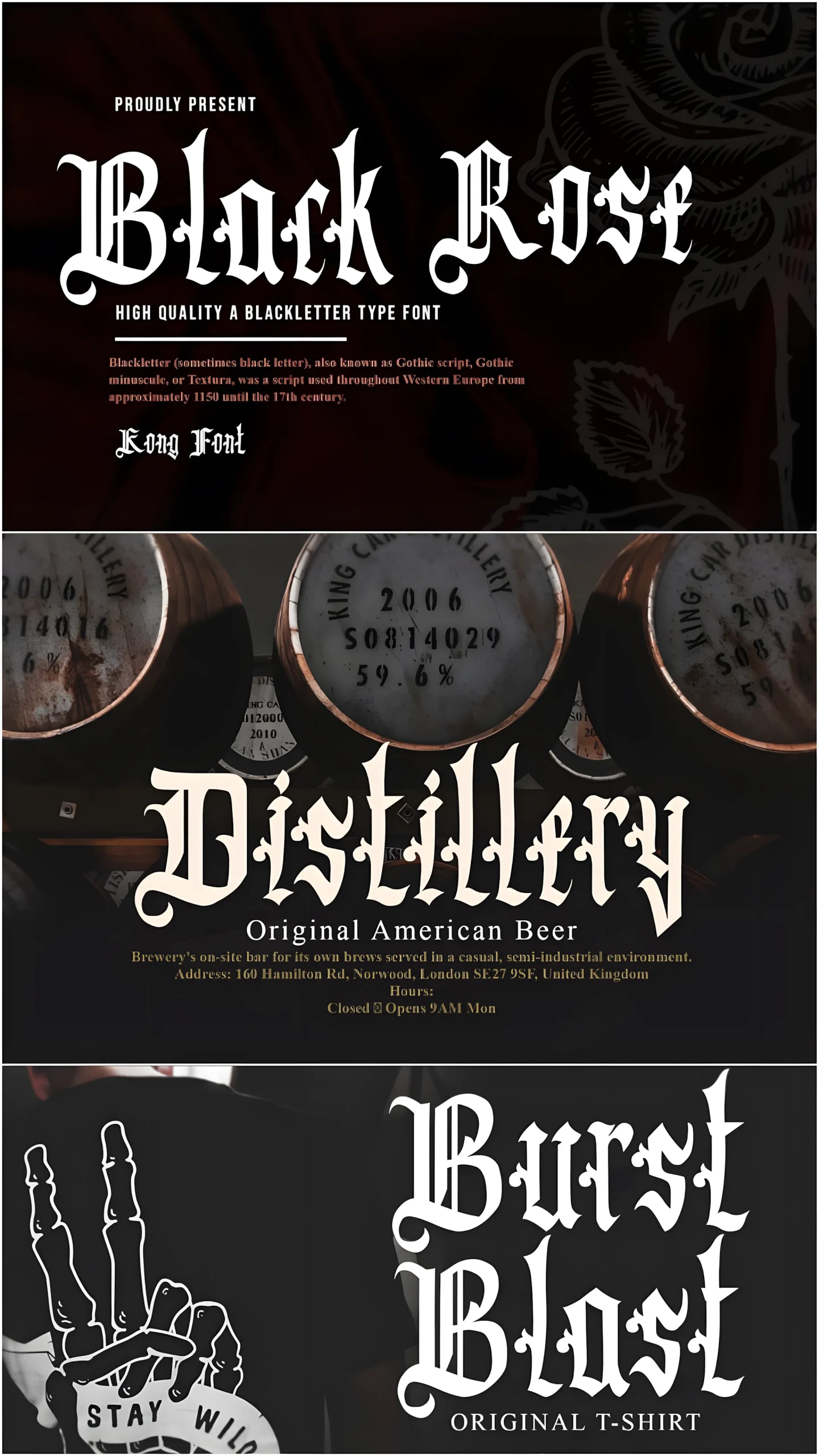
Some fonts feel decorative, others feel historical, and a few manage to balance both worlds. Black Rose Font belongs to that rare category. This is a classic blackletter display typeface designed to bring traditional gothic elegance into modern creative projects.
The font is rooted in historic blackletter writing styles, yet it feels clean, controlled, and highly usable. It works well for designers who want a timeless gothic look without excessive ornamentation or visual noise.
Visual Style and First Impression
Black Rose Font immediately communicates tradition and authority. The letterforms are sharp, structured, and clearly inspired by classic blackletter scripts once used throughout Western Europe. The strokes are deliberate and well-balanced, giving the font a refined and dignified appearance.
Unlike more aggressive or distressed gothic fonts, Black Rose feels polished and calm. The edges are clean, the proportions are consistent, and the characters maintain excellent legibility for a blackletter typeface.
The overall impression is classic, elegant, and confident.
A Traditional Blackletter With Modern Clarity
At its core, Black Rose Font is a blackletter typeface, sometimes referred to as gothic or textura-inspired lettering. This style is known for its vertical emphasis, sharp angles, and formal rhythm.
What makes Black Rose stand out is its restraint. The font does not exaggerate spikes or distort shapes. Instead, it preserves the historical character while adapting it for modern design needs.
The result is a font that feels authentic without appearing outdated or overly decorative.
Designed for Versatile Creative Use
Black Rose Font is flexible enough to work across many design categories. It fits naturally into projects that require a sense of tradition, craftsmanship, or formality, but it also adapts well to contemporary layouts.
It works especially well in designs related to:
- heritage and tradition
- gothic or medieval themes
- classic branding
- formal decorative typography
The font feels intentional rather than theatrical.
Practical Design Applications
Logos and Branding
Black Rose Font works well in logo design where a strong, classic identity is needed. The blackletter structure gives logos a sense of history and authority, making them feel established and trustworthy.
It fits especially well for:
- craft brands
- heritage businesses
- vintage-style branding
- specialty product labels
The clean execution ensures logos remain readable at different sizes.
Posters, Covers, and Headlines
As a display font, Black Rose performs strongly in headlines and titles. It brings structure and elegance to:
- posters
- book covers
- album artwork
- editorial headlines
The font commands attention without relying on aggressive styling, making it suitable for both dark and neutral design themes.
- printed materials
- web visuals
Its structure holds up well across different resolutions and output types.
Readability and Usage Notes
Black Rose Font is a display typeface, not designed for long paragraphs. It performs best in:
- titles
- logos
- short phrases
- featured text
Spacing is important when working with blackletter fonts. Allowing enough space between letters helps preserve clarity and prevents characters from visually merging.
Pairing Black Rose with a simple sans-serif or serif font for body text creates a balanced and readable layout.
Emotional Tone and Design Feel
The emotional tone of Black Rose Font is classic, confident, and composed. It feels serious without being intimidating and traditional without feeling rigid.
This makes it suitable for designs that aim to communicate:
- craftsmanship
- tradition
- elegance
- historical depth
The font supports messages that need to feel refined rather than aggressive.
Black Rose Font offers a refined take on classic blackletter typography. Its clean structure, historical roots, and modern usability make it a versatile option for designers who want gothic character without excessive intensity.
For projects that require elegance, tradition, and strong typographic identity, Black Rose Font provides a reliable and visually balanced solution. Used thoughtfully, it adds depth and timeless character to both digital and physical designs.